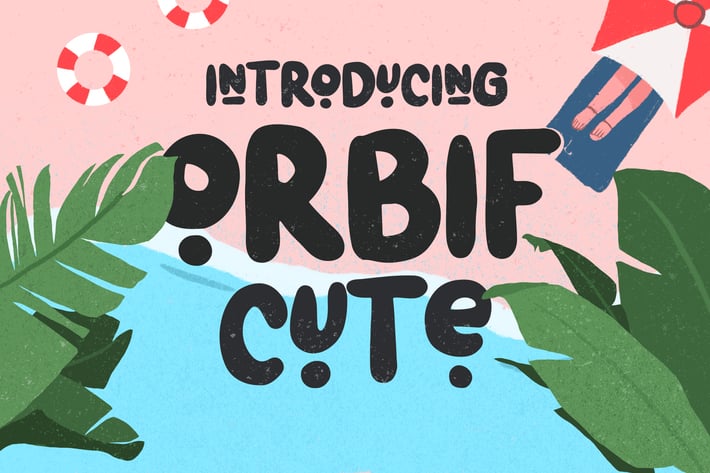
Orbif Cute Typeface
Meets Orbif Cute Typeface, A new carefully crafted Delightful Bold on fun typefaces. . It generates a lot more fun, more trendy and more vibrant. Itβs Versatile, Fun, Cute and Beauty feel that you get in Orbit Typefaces.
Our creation on the display to give you a reference what it looks like on your project. such as Branding, Header, Logotype, Poster, Magazine, Packaging, Food Menus, and etc. It shows that Orbit clearly can accommodate various design style.